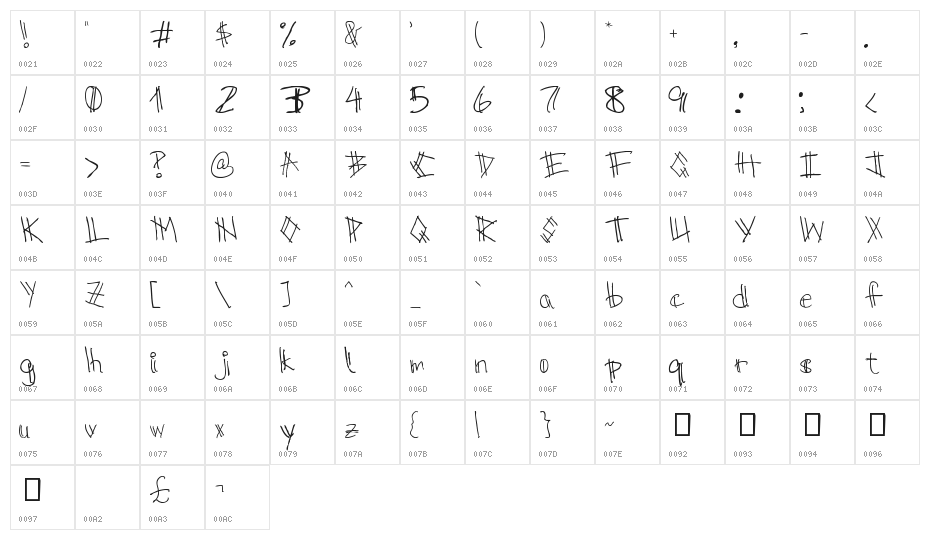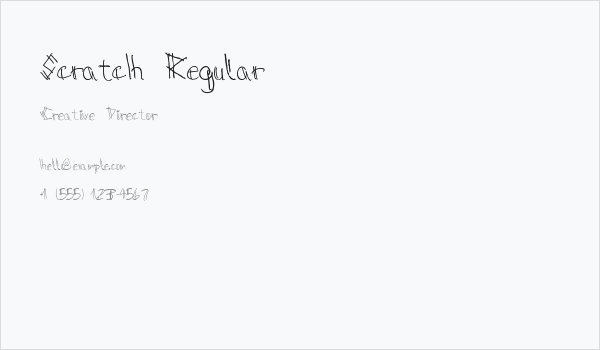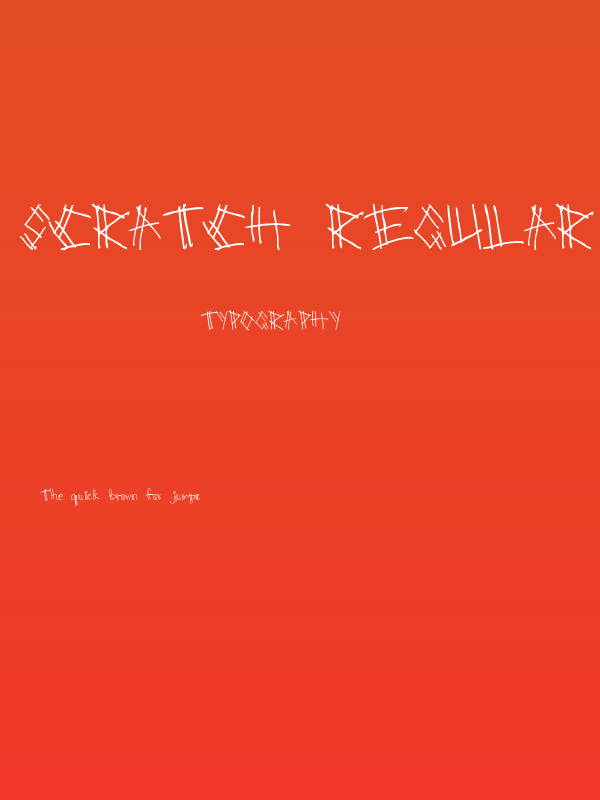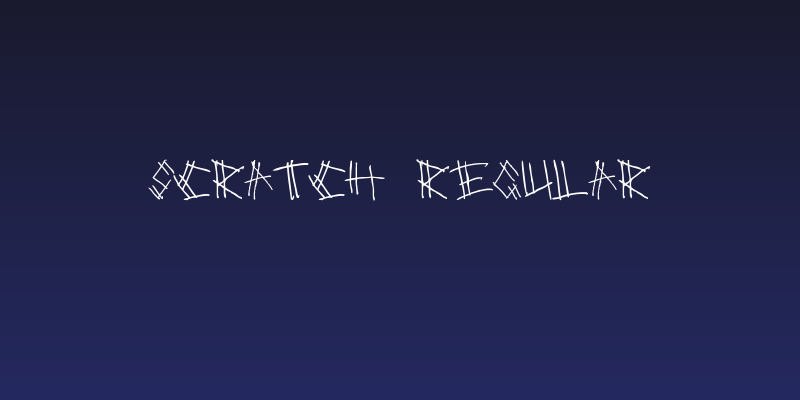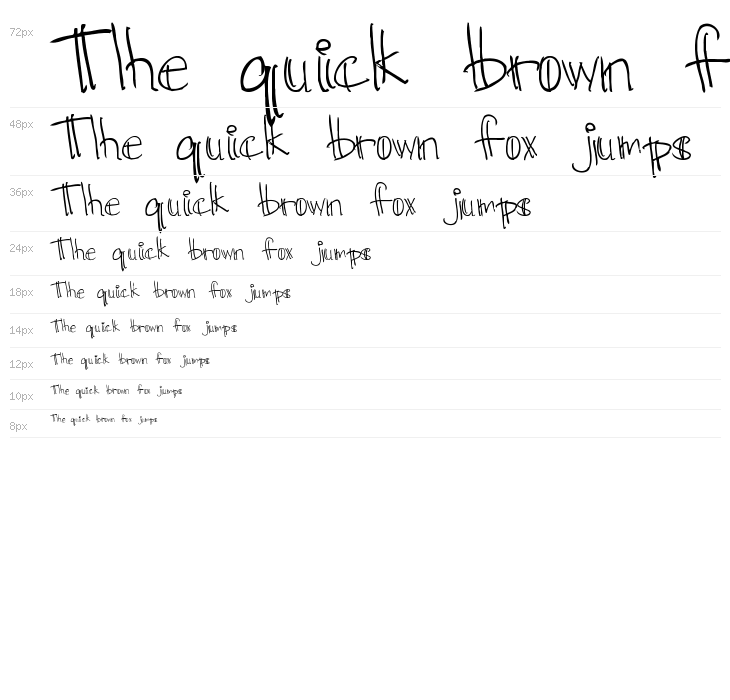
Scratch Regular Font
This font exhibits a unique, hand-drawn style with a scratchy, uneven texture that gives it a raw and edgy appearance. The characters are irregularly shaped, with varying line thicknesses that create a sense of movement and energy. The uppercase letters are tall and narrow, while the lowercase letters maintain a playful, whimsical quality. Numbers and special characters follow the same distinctive style, adding to the font's overall chaotic charm. This font is perfect for projects that require a bold, artistic touch, such as posters, album covers, or creative branding.
| Proposed Projects | Ideal for artistic projects like posters, album covers, and creative branding. |